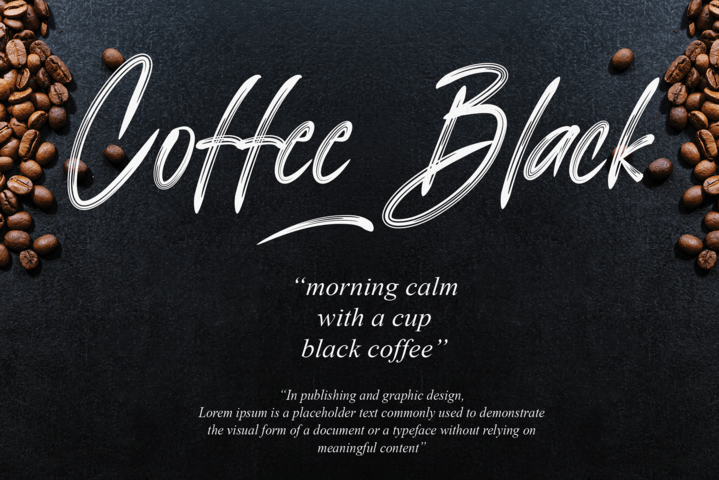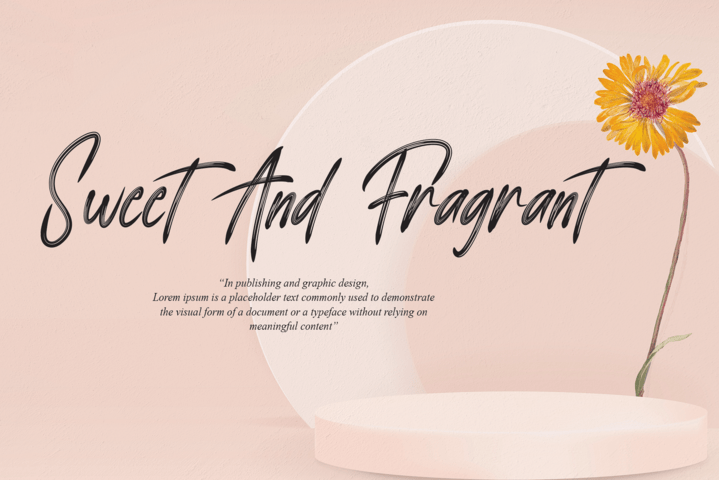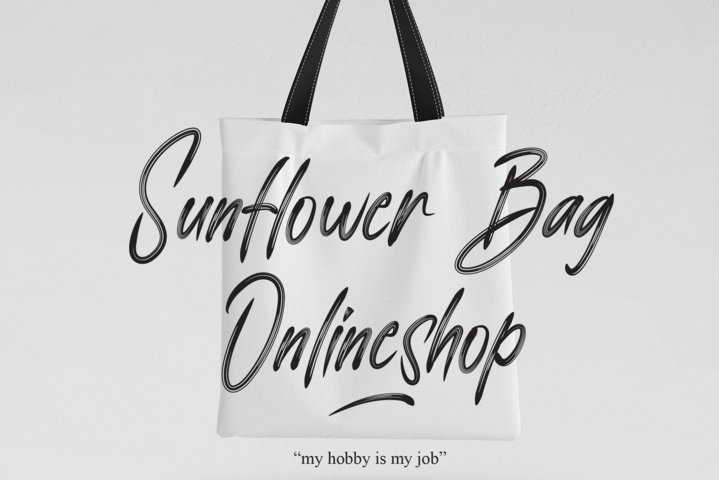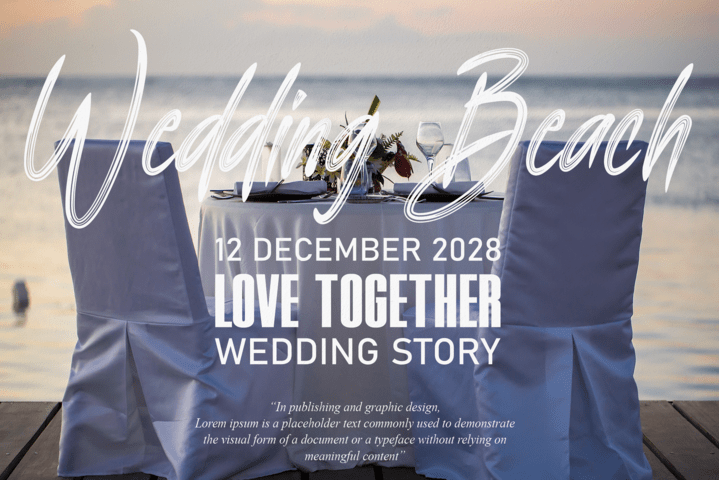
The Romantic Font
The Romantic Brush Font
It’s a delicate, elegant and flowing handwritten font. It has beautiful and well balanced characters and as a result, it matches a wide pool of designs. Add it to your most creative ideas and notice how it makes them come alive!